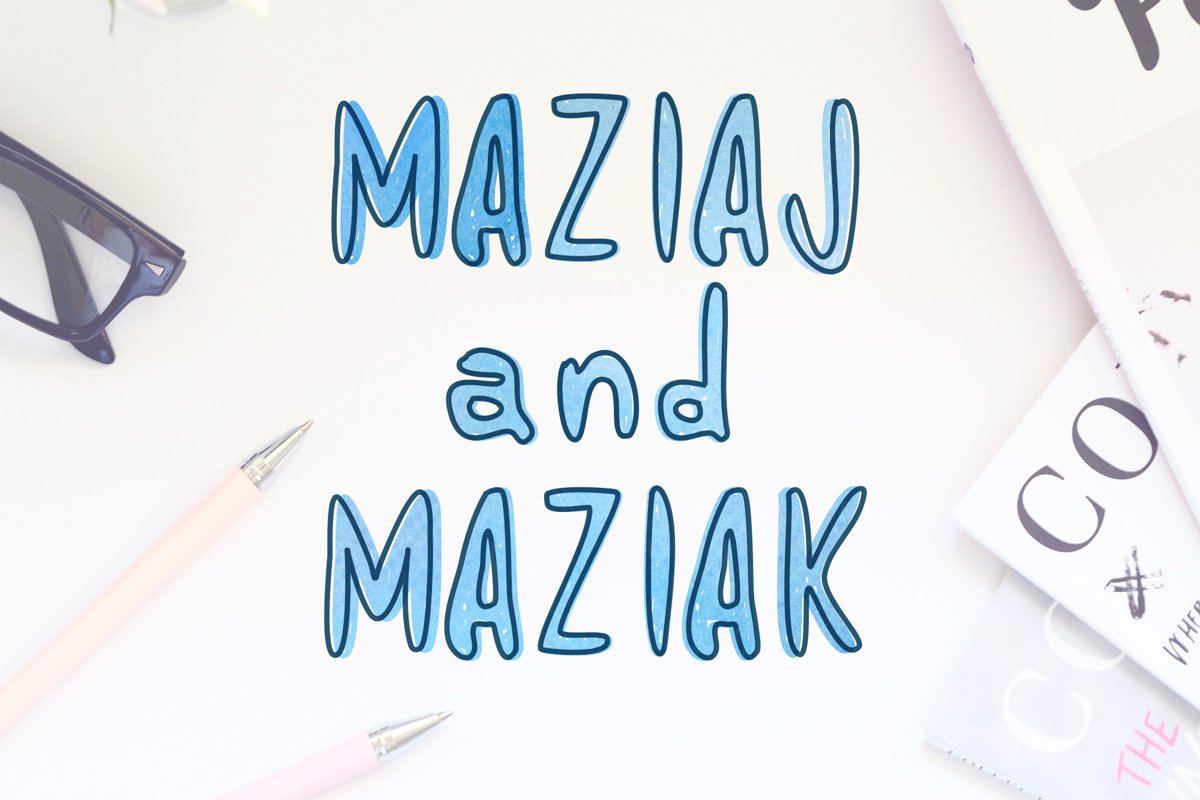
Maziaj and Maziak - 2 fonts
maziak
Maziaj
Maziaj and Maziak is a tall and quirky display font. Colorful and friendly, this display font is the perfect choice for a large pool of contexts. use your imagination and elevate each of your projects!